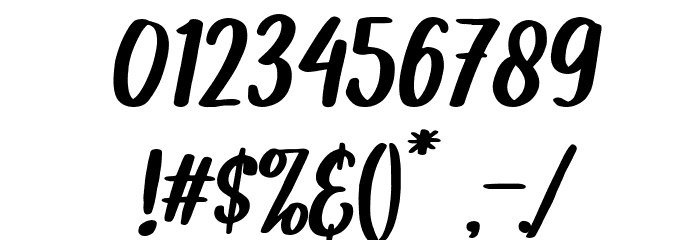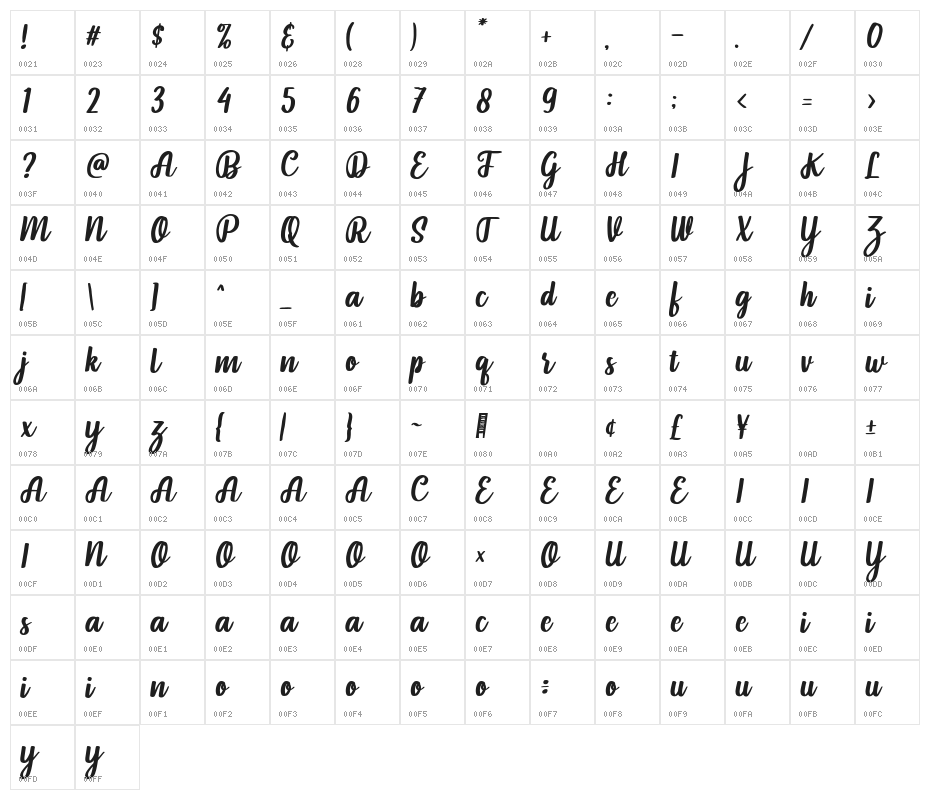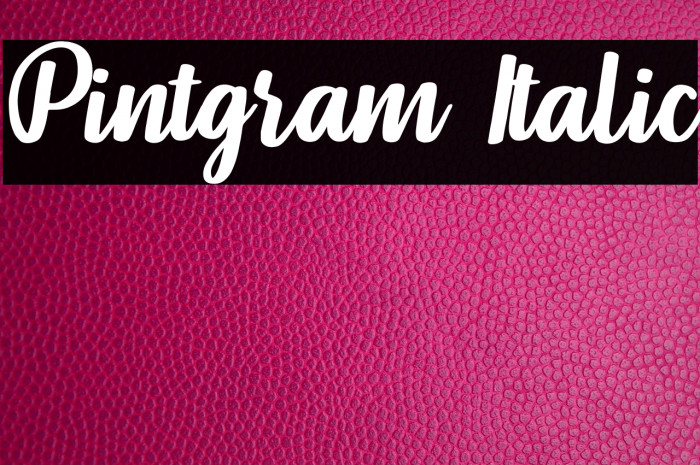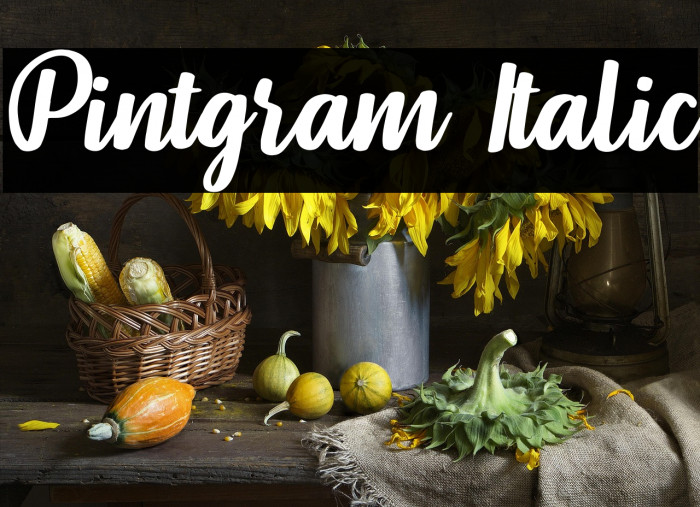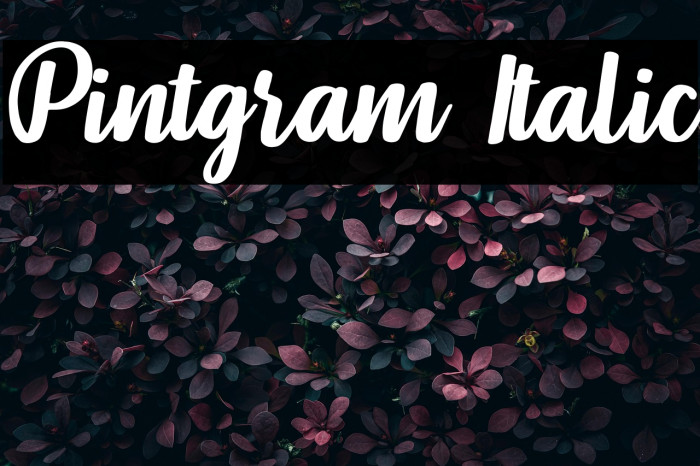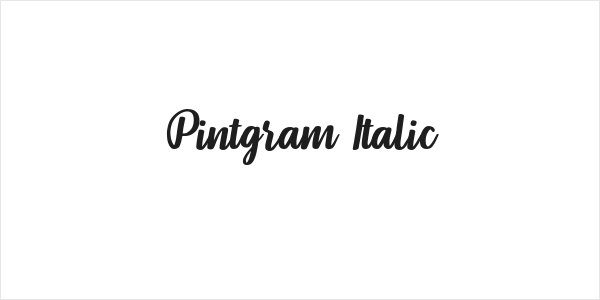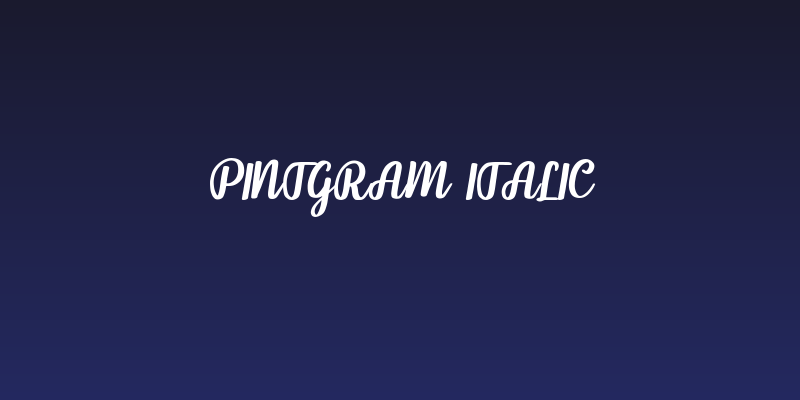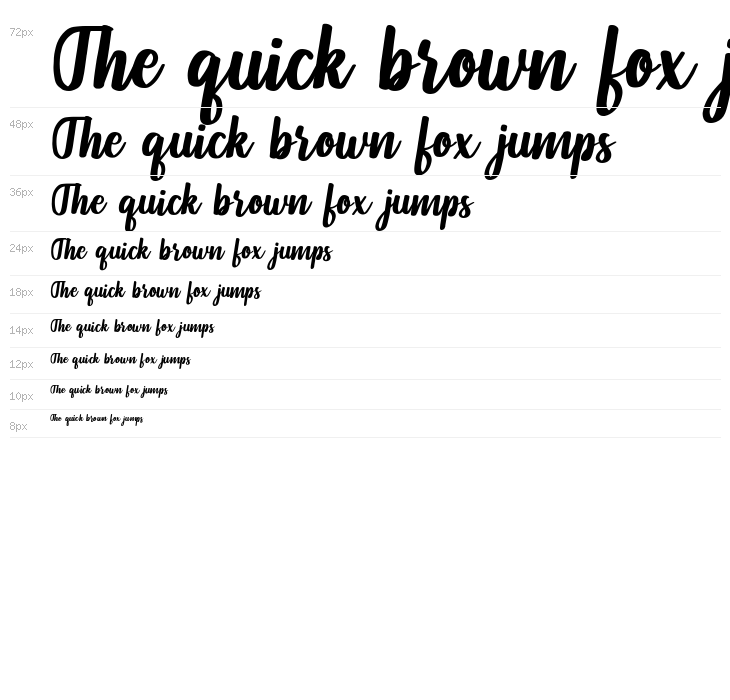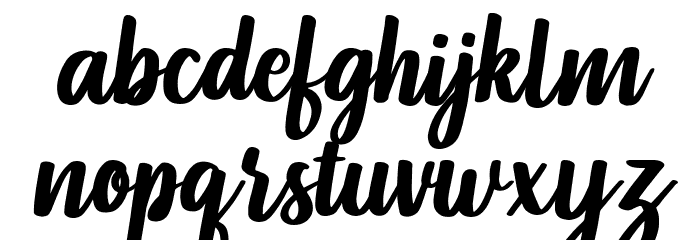
Pintgram Italic Font
Pintgram Italic Description
This font features a bold and expressive script style with a flowing, cursive design. The letters are connected, creating a sense of movement and fluidity. The uppercase letters are slightly larger and more prominent, while the lowercase letters maintain a consistent height, enhancing readability. The numbers and special characters are designed to match the overall style, with smooth curves and elegant lines. The font's bold weight and italic slant give it a dynamic and modern appearance, making it suitable for various creative applications.